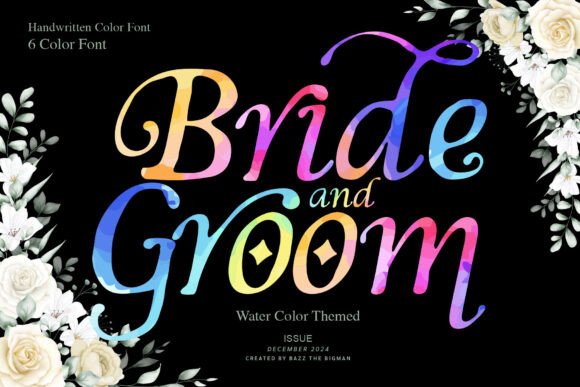
Experience the Magnificence of Bride and Groom Font: Elevate Your Designs with Elegance
Are you a designer or crafter looking for a font that embodies style and captivating elegance? Look no further than the Bride and Groom font, a stunning color font that is sure to brighten up any project. With its watercolor theme, this font radiates an artistic sophistication that is perfect for a variety of occasions, from Christmas celebrations to dreamy wedding cards and heartwarming Valentine messages.
The Beauty of Bride and Groom Font
The Bride and Groom font is a masterpiece of design, with a unique watercolor theme that gives it a soft, romantic feel. The font is carefully crafted to evoke the joy and happiness of special occasions, making it perfect for designers and crafters who want to create beautiful and memorable projects. Whether you’re designing a wedding invitation, a Christmas card, or a Valentine’s Day message, this font is sure to add a touch of elegance and sophistication.
Key Features of Bride and Groom Font
So, what makes the Bride and Groom font so special? Here are just a few of its key features:
- Watercolor Theme: The font’s watercolor theme gives it a soft, romantic feel that is perfect for a variety of occasions.
- Color Font: The Bride and Groom font is a color font, which means it comes with a range of colors that can be used to add depth and interest to your designs.
Uses for Bride and Groom Font
The Bride and Groom font is incredibly versatile, and can be used for a wide range of projects. Here are just a few ideas to get you started:
- Wedding Invitations: The font’s romantic feel makes it perfect for wedding invitations, save-the-date cards, and other wedding-related projects.
- Christmas Cards: The font’s festive feel makes it perfect for Christmas cards, holiday invitations, and other seasonal projects.
- Valentine’s Day Messages: The font’s romantic feel makes it perfect for Valentine’s Day messages, love letters, and other heartfelt projects.
- DIY Crafts: The font’s whimsical feel makes it perfect for DIY crafts, such as handmade cards, gift tags, and other paper crafts.
Tips for Using Bride and Groom Font
Here are a few tips for using the Bride and Groom font in your designs:
- Experiment with Colors: The font comes with a range of colors, so don’t be afraid to experiment and find the perfect combination for your project.
- Use Swashes and Glyphs: The font features a range of swashes and glyphs that can be used to add interest and depth to your designs.
- Pair with Other Fonts: The Bride and Groom font can be paired with other fonts to create a unique and interesting look.
In conclusion, the Bride and Groom font is a stunning color font that is sure to elevate your designs with its elegance and sophistication. With its watercolor theme, PUA encoding, and user-friendly functionality, this font is perfect for designers and crafters who want to create beautiful and memorable projects. Whether you’re designing a wedding invitation, a Christmas card, or a Valentine’s Day message, this font is sure to add a touch of magic to your creations.